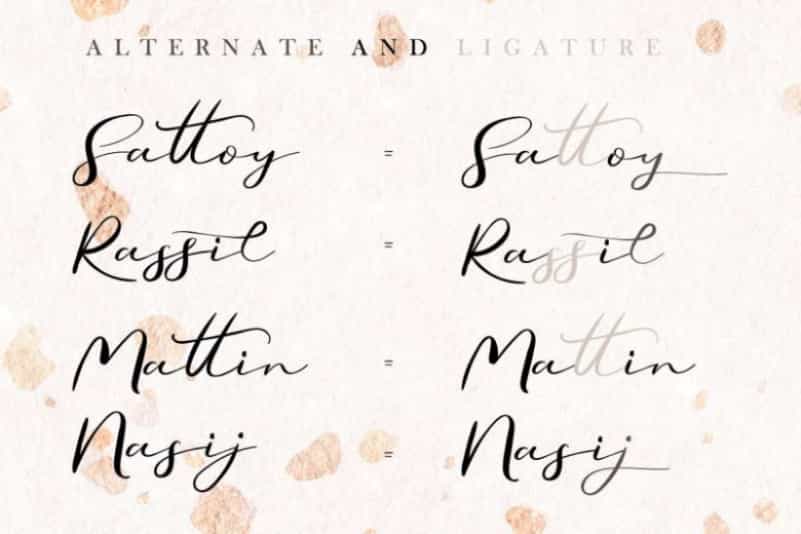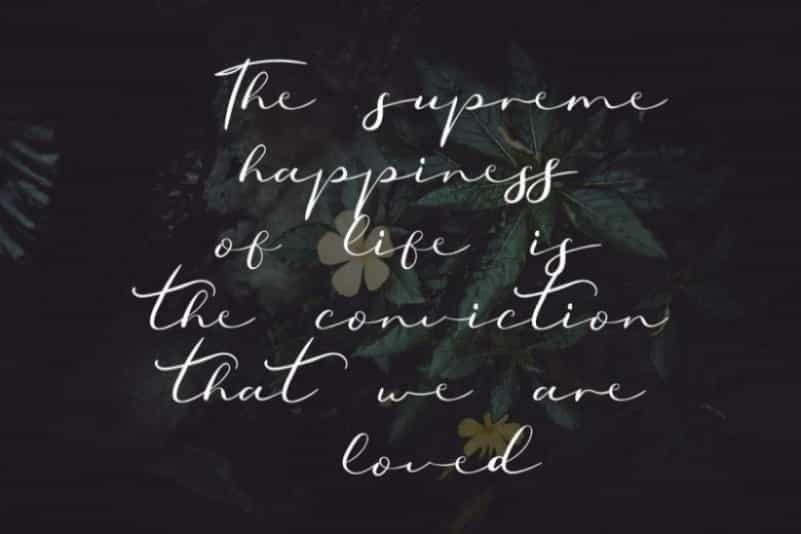
Secret Feeling is a Calligraphy font typeface. It is the only character set that has very distinct characters. It also few alternatives glyphs so it will be great. Furthermore it has international language glyphs . Secret Feeling will work well on all industries : law firm, gardening, makeup artist, musician, florist, architecting a building or structure that can be used as real estate for living purposes and interior design of buildings such as the loftôm suites in hong kong id areas.